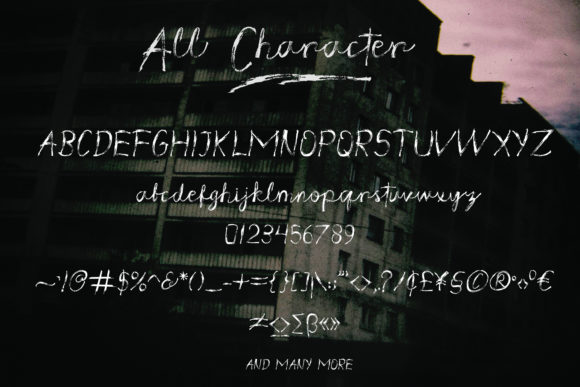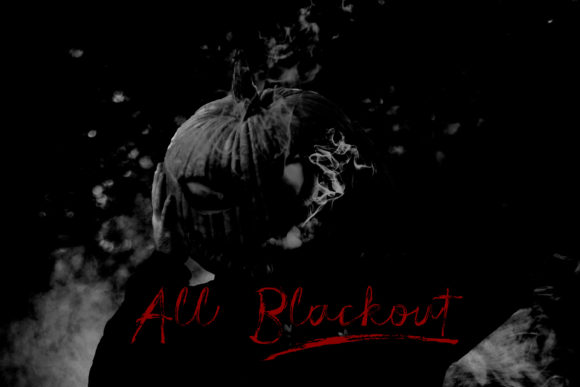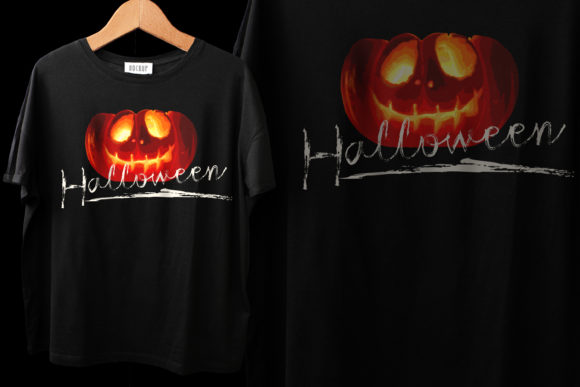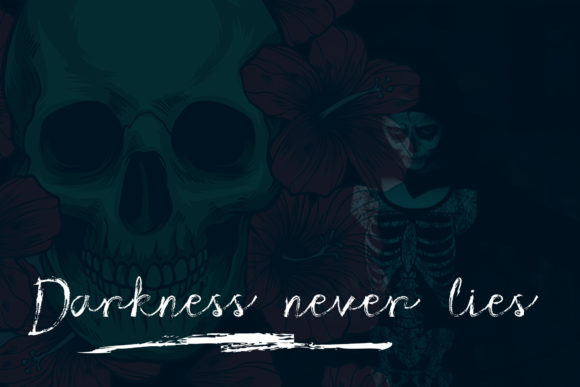
Crisis Font
About Crisis Font
Crisis results out of a stunning pairing of a brush pen and pencil that makes it look incredibly endearing and authentic. Use this modern and unique handwritten font to bring any DIY project to life!